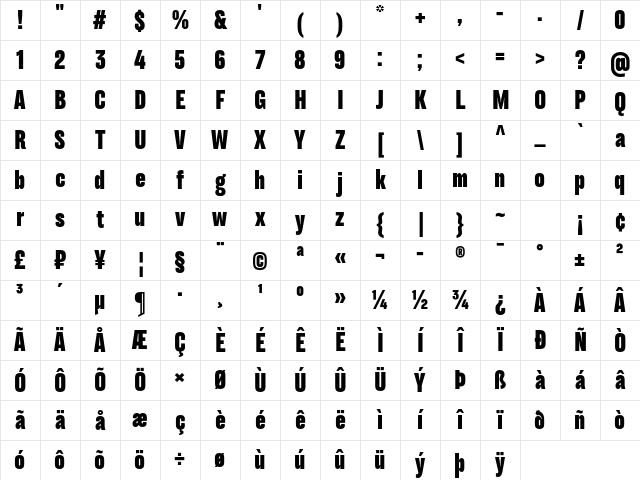
TT Backwards Sans Trial Black Free Font
TT Backwards Sans Trial Black
Designer: TypeType
Design Context for TT Backwards Sans Trial
TT Backwards Sans Trial is a composed and adaptable typeface that performs quietly and consistently across a wide range of design contexts.